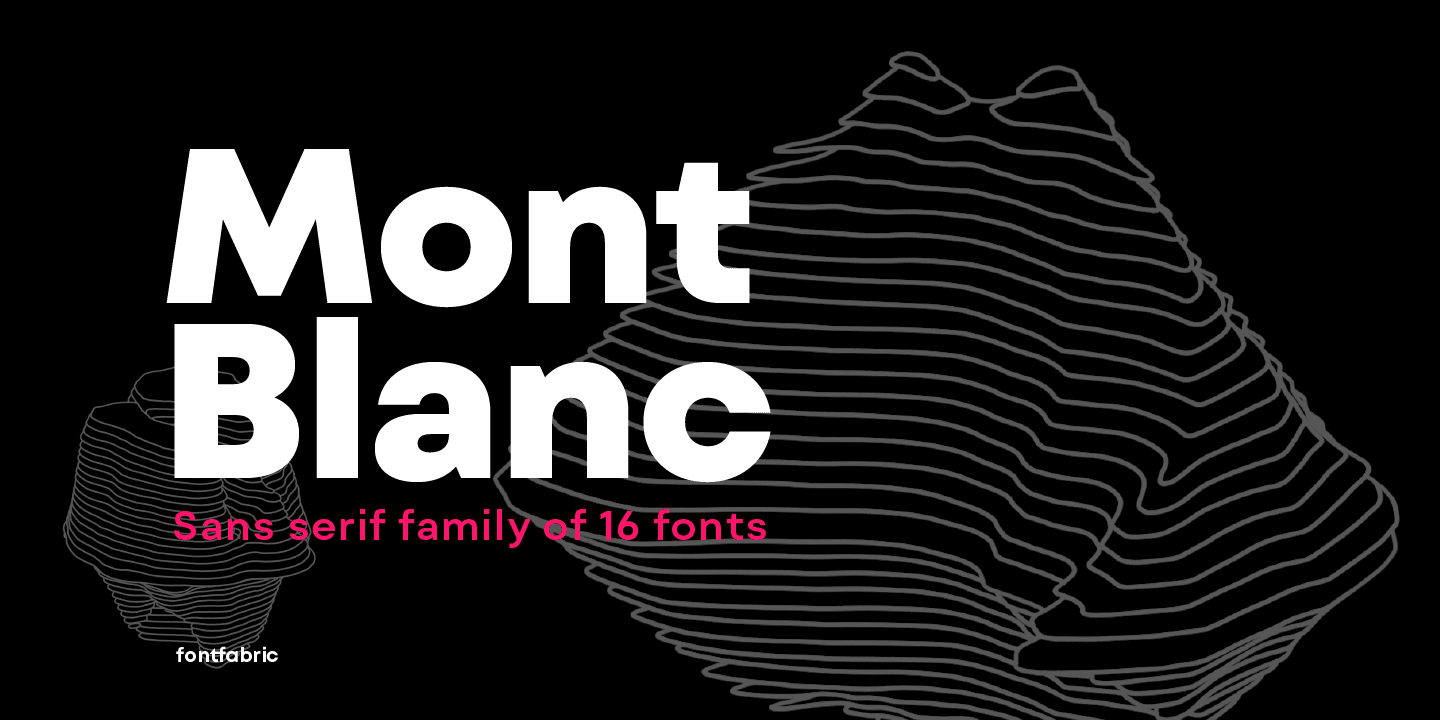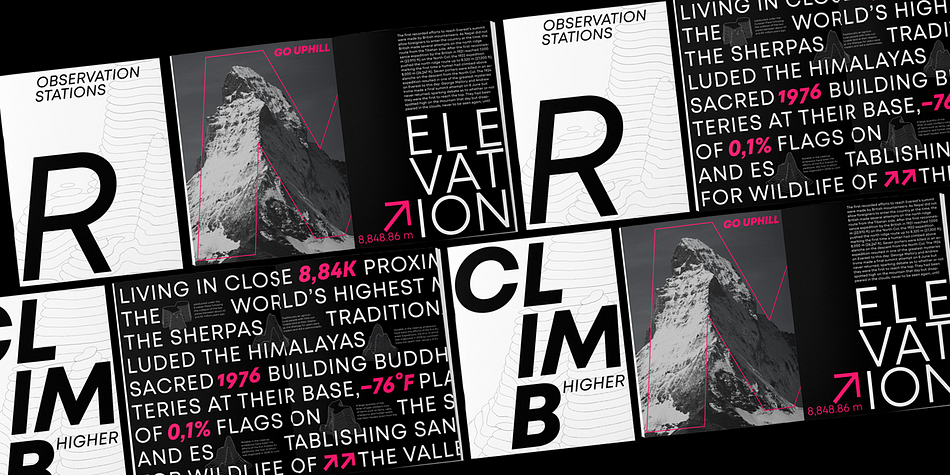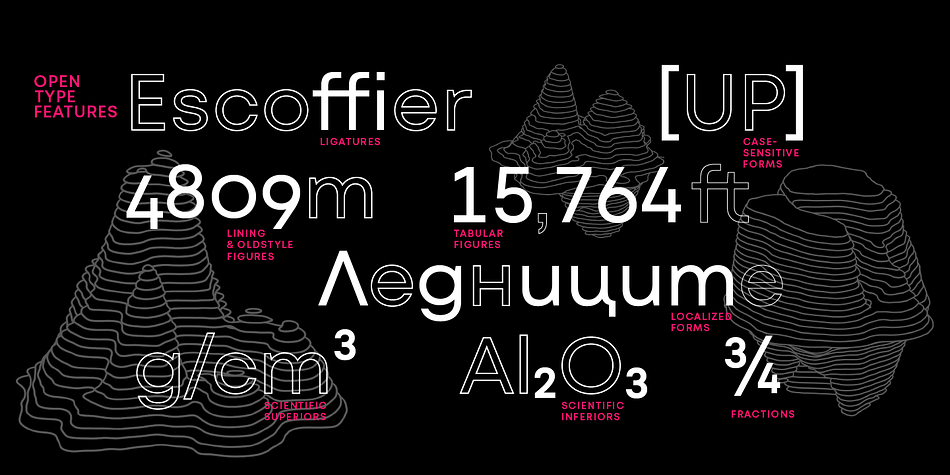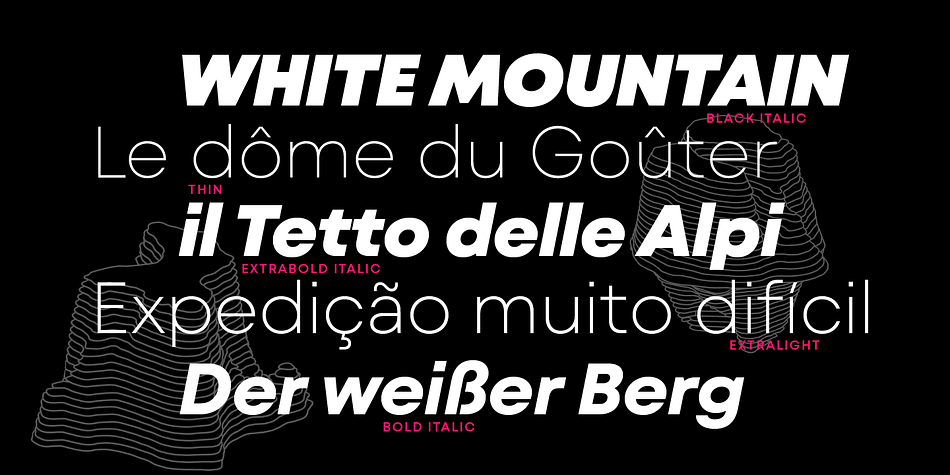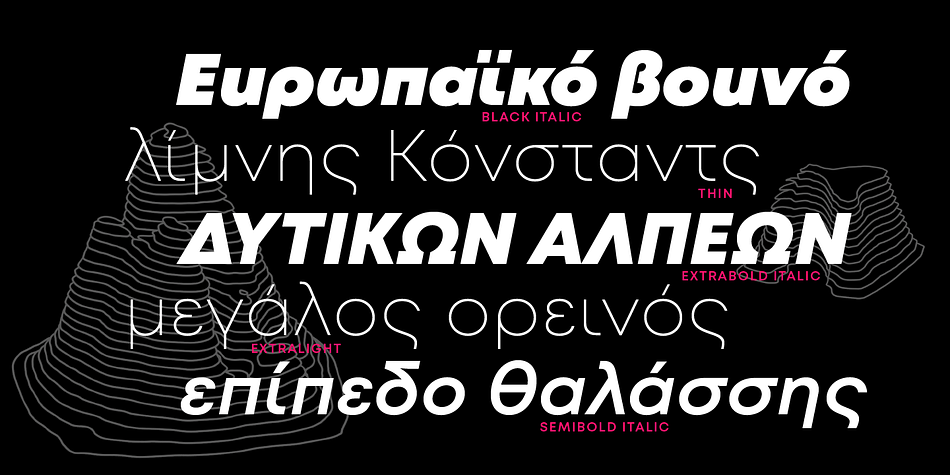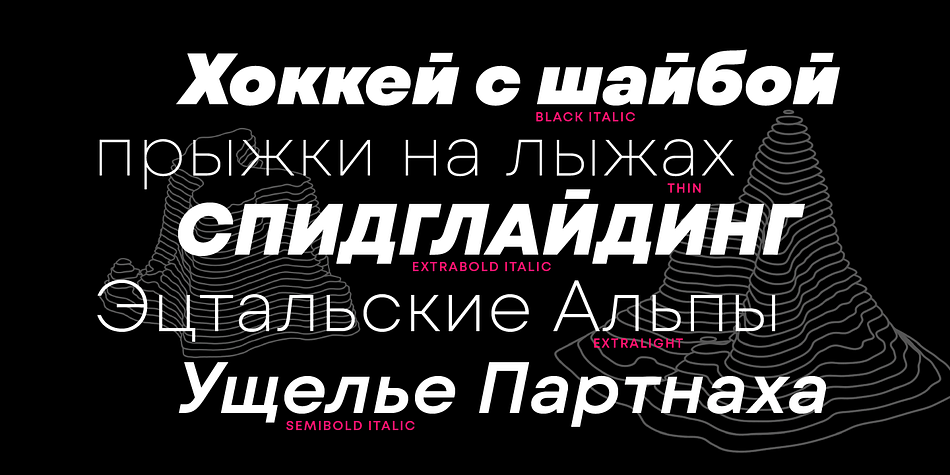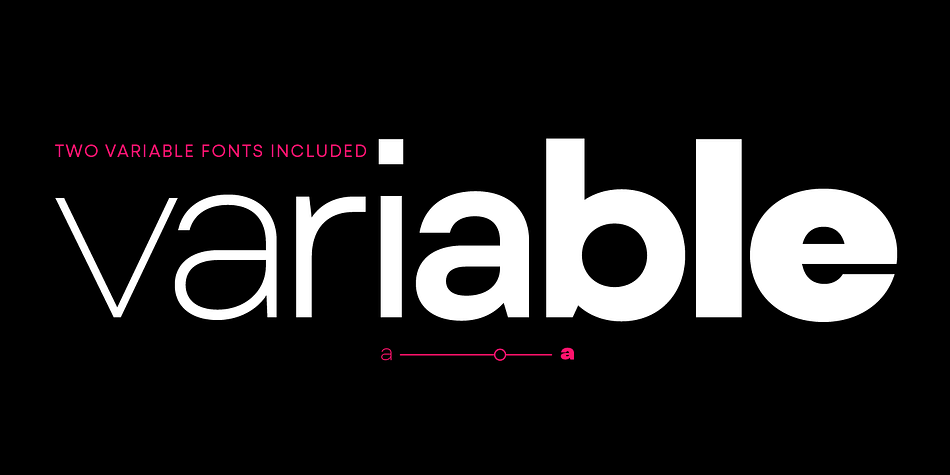
Designed by Svetoslav Simov, Mont Blanc is a sans serif font family. This typeface has eighteen styles and was published by Fontfabric.
A new type giant emerges taking after the legendary geometric sans serif Mont!
Mont Blanc elevates all prized unique details of Mont and translates them into an independent flawless text font family. This type prodigy comes with heaping legibility improvements dedicated to the smaller sizes and challenging paragraphs.
The new type family is set to climb to the top of your “favorite design tools” with adjusted x-height, refined weight, and glyphs redesign to name but a few. Venture into new projects equipped with 8 font weights and matching italics, multi-script support, and rich OpenType features set.
Language Support: Extended Latin (all Western languages), Cyrillic, Greek
OpenType Features:
• Localized Forms
• Subscript
• Scientific Inferiors
• Superscript
• Numerators and Denominators
• Fractions
• Ordinals
• Lining Figures
• Proportional Figures
• Tabular Figures
• Oldstyle Figures
• Case-Sensitive Forms
• Standard Ligatures
• Stylistic Alternates
• Contextual Alternates